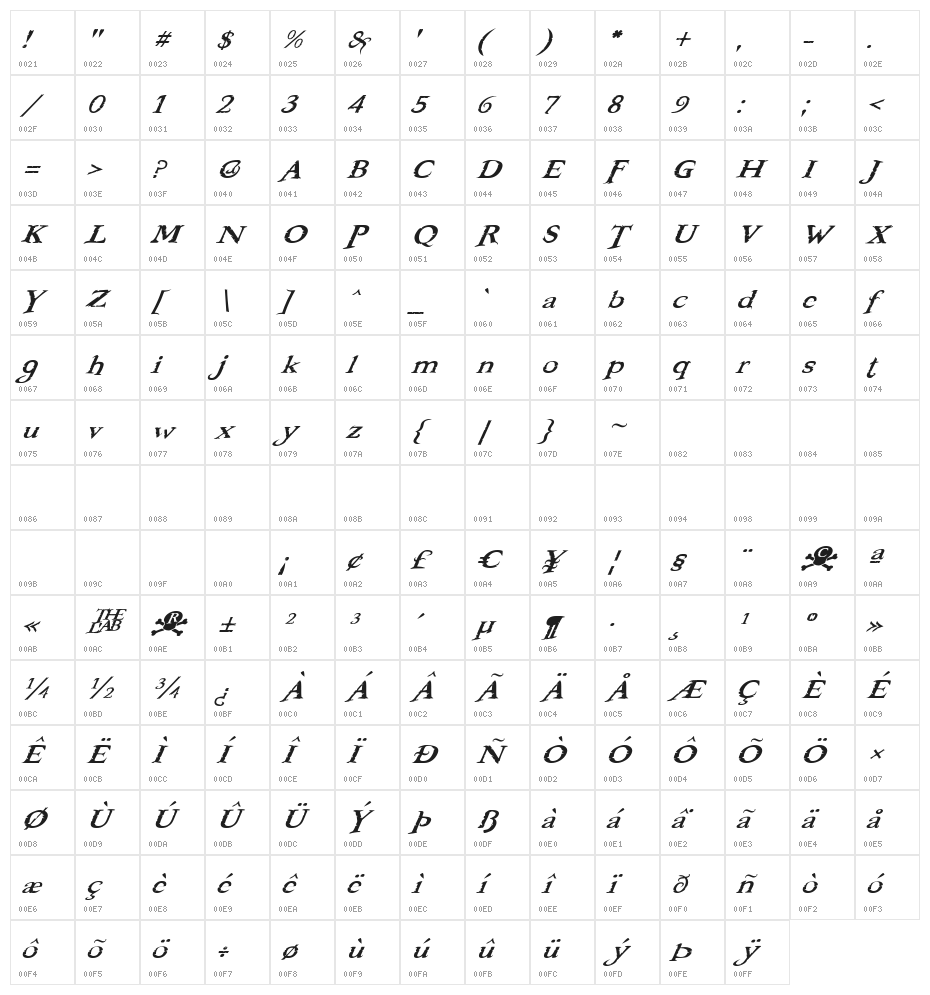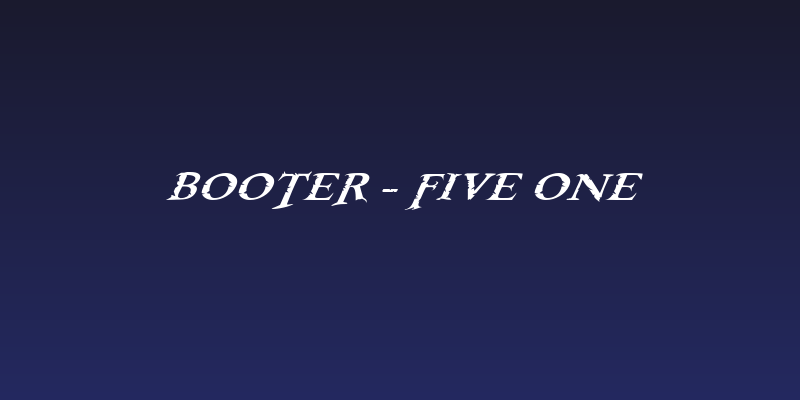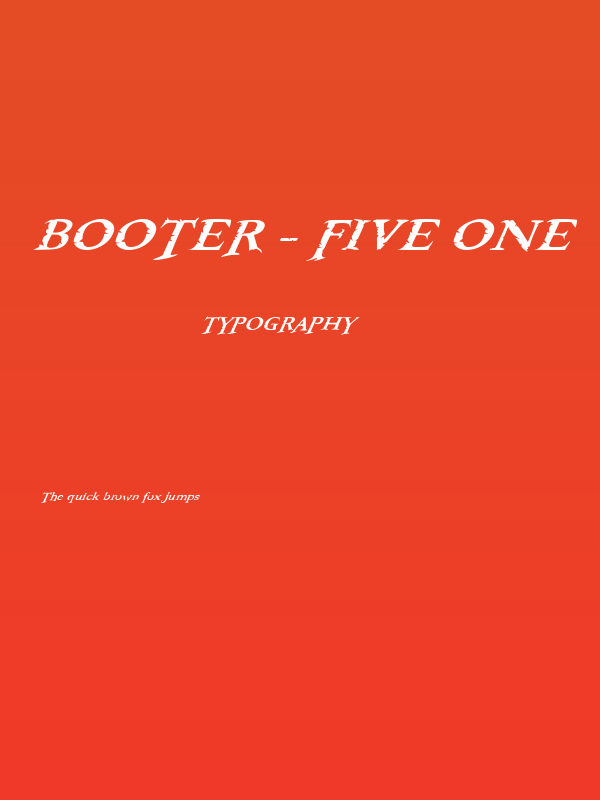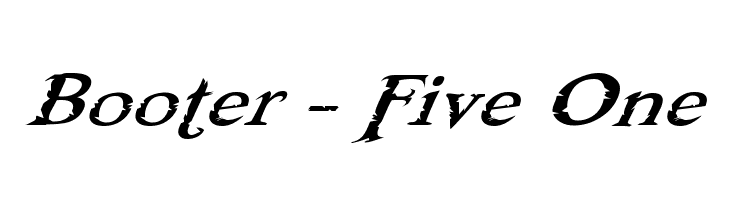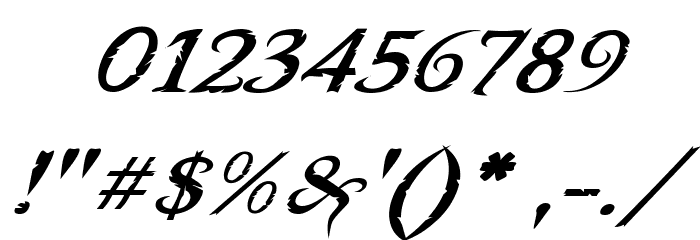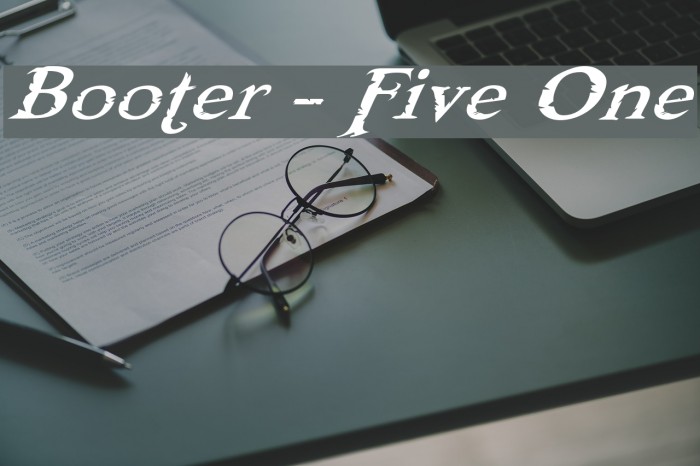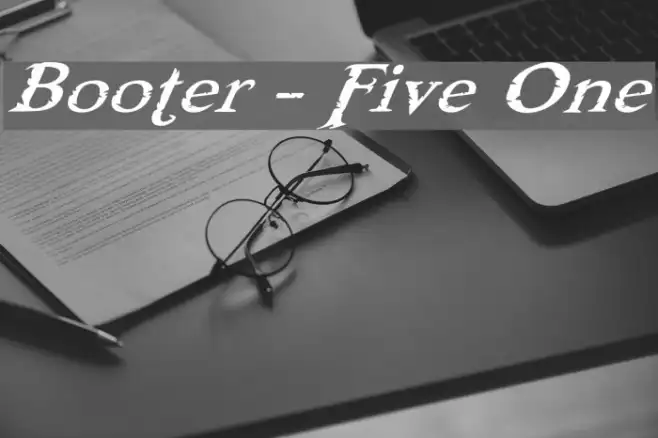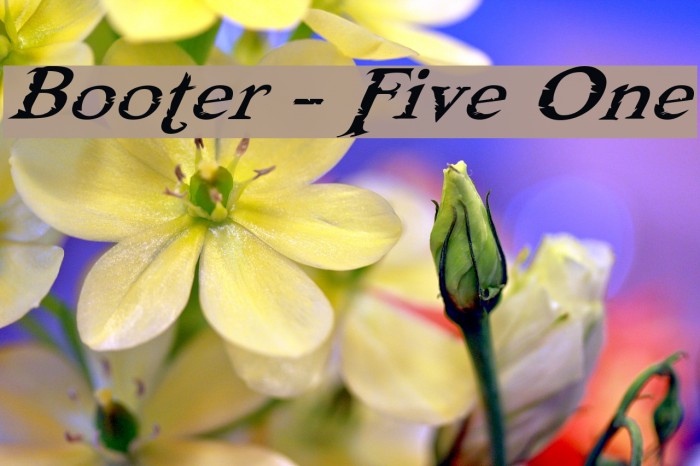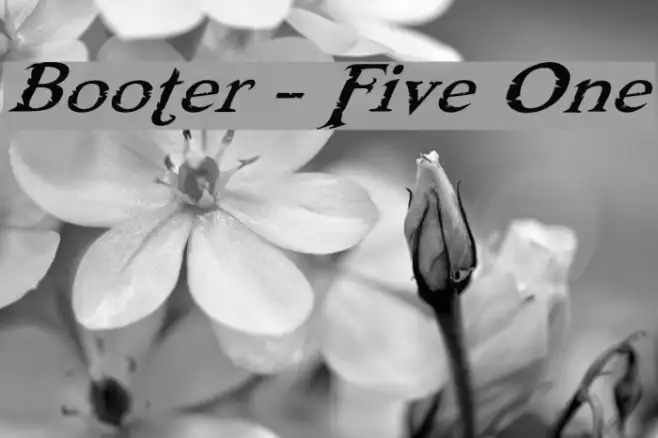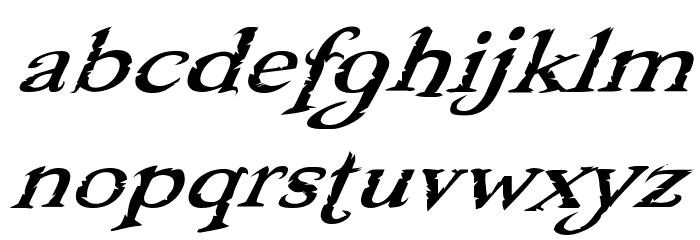
Booter - Five One Font
Booter - Five One Description
This font features a dynamic and energetic style with a distinct slant, giving it a sense of movement and flair. The characters are bold and have a sharp, angular design, which adds to their striking appearance. The uppercase and lowercase letters maintain a consistent style, with the uppercase being slightly more pronounced. The numerals and special characters follow the same aesthetic, ensuring a cohesive look across all text. This font's unique design makes it stand out, making it suitable for projects that require a bold and impactful visual presence.
| Proposed Projects | Ideal for branding, posters, headlines, and any design that requires a strong visual impact. |